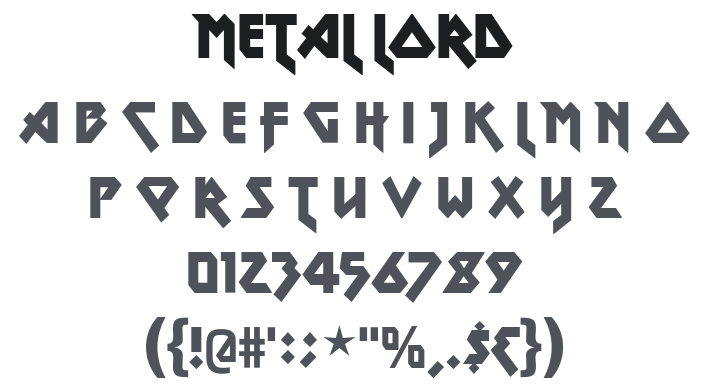
Metal Lord Font
About Metal Lord
Metal Lord is a sharp, angular heavy metal display typeface inspired by the Iron Maiden logo — bold, aggressive letterforms with spiky flag-like serifs and dramatic pointed strokes that radiate pure stadium-rock power. Smart OpenType features cause letters to occasionally flip, tuck, and grow little flags to fit naturally together. Perfect for metal band logos, album covers, rock posters, horror game titles, and any design demanding fierce, uncompromising attitude.